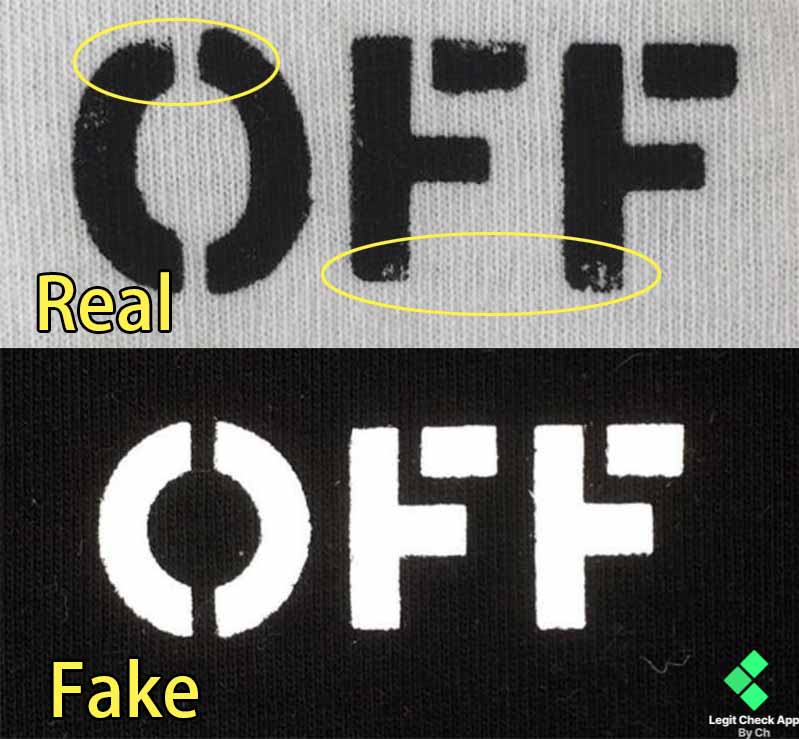
Off White Font In Word. Helvetica looks like the correct font, but the quotation marks aren't right. Most of the time it doesn't work but sometimes it will work.
He centered the design aesthetic on diagonal lines and the iconography. Most of the time it doesn't work but sometimes it will work. This happened last night without me doing anything.
Use helvetica bold for the writing and for the quotes use futura. Using white text on a dark background for these types of text is an effective way to highlight them to grab user attention. Helvetica looks like the correct font, but the quotation marks aren't right.
This effectively makes the text disappear because seeing white text on white paper is about as easy as seeing a white snowflake in a field of snow. Keep in mind that while a good writing service should be affordable to you, it definitely shouldn’t be. To get the helvetica quotations right, for windows, open character map.